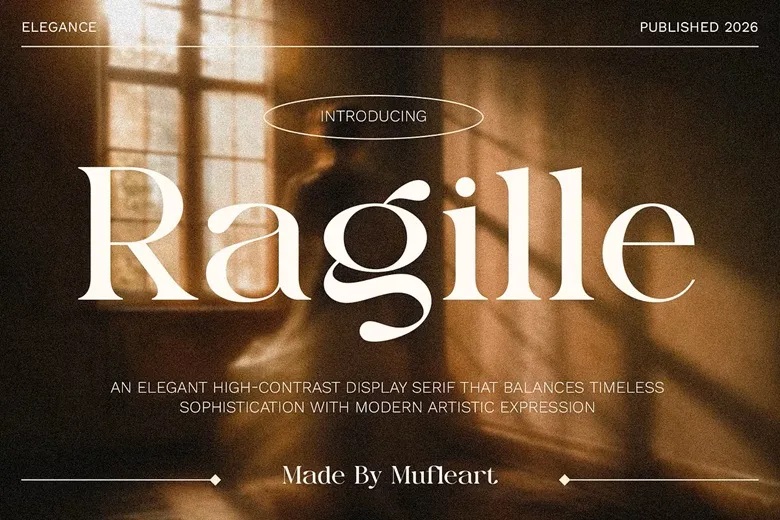
Ragille Serif Font
Ragille Font
Ragille is a serif font with a modern, minimalist style. It adds a touch of luxury and elegance to projects like websites, logos, brand identities, social media quotes, wedding stationery, magazines, and more. Ragille offers unique, elegant capital letters from A to Z.
It is a versatile font that you can customize for many projects. Ragille works well for logos, brands, wedding invitations, business cards, greeting cards, posters, magazines, social media, printed agendas, and websites.